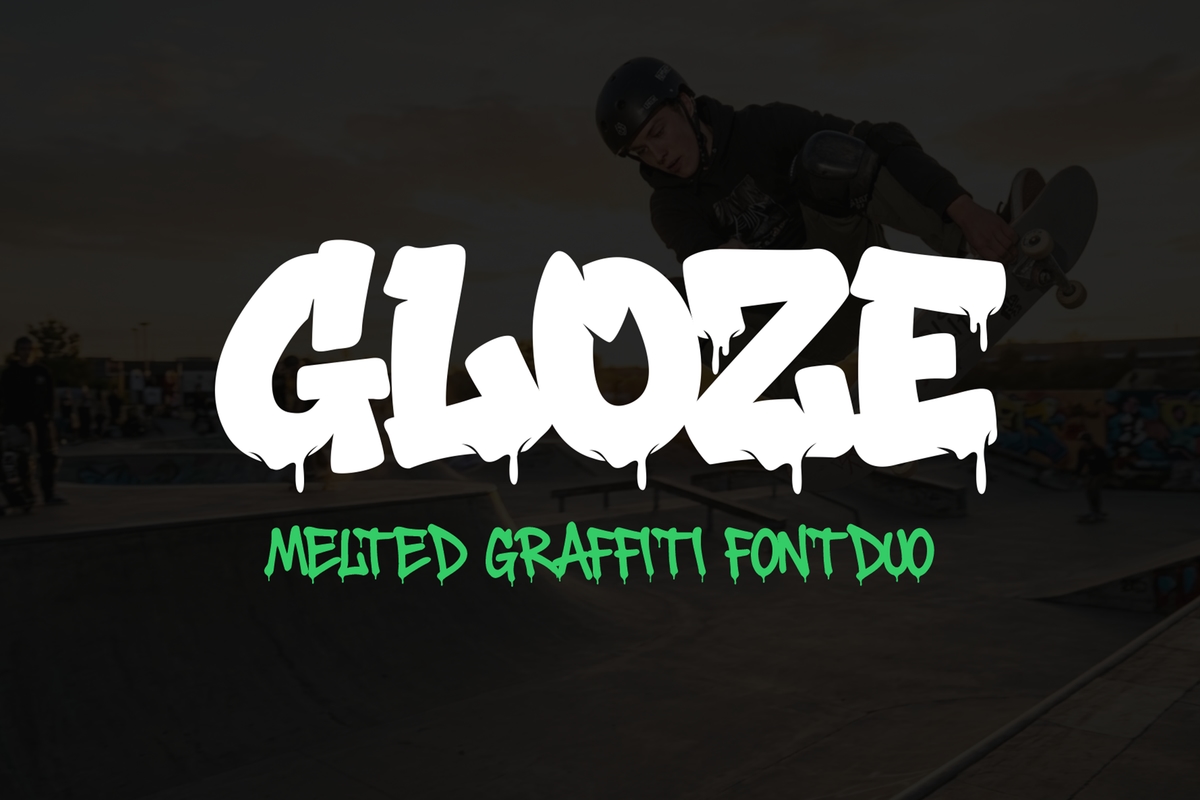
Gloze
Gloze is a striking graffiti typeface that embodies the raw, unfiltered energy of urban street culture. Inspired by real-world tagging, spray paint techniques, and the natural flow of dripping paint, this font delivers an authentic graffiti experience that stands out in any creative project. Designed with expressive detail and bold character, Gloze transforms simple text into powerful visual statements. At its core, Gloze captures the essence of street art. Each letter is shaped with organic cu